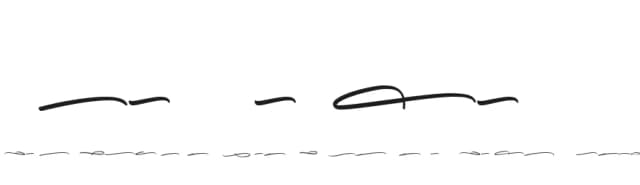
About Marsttar Font
Marsttar Specifications
| Designer | Nickyart | Yusuf niki syahroni |
Marsttar Font is a script font that shines as a display or heading face. Pair it with a clean sans-serif or serif font for body text β the contrast creates a clear hierarchy while the two styles stay balanced and easy to read.
Marsttar Font